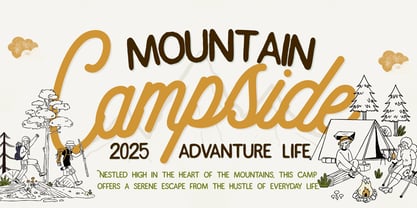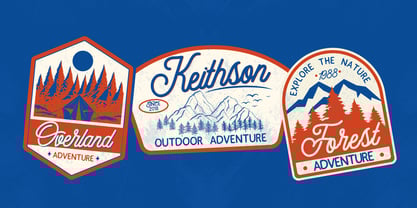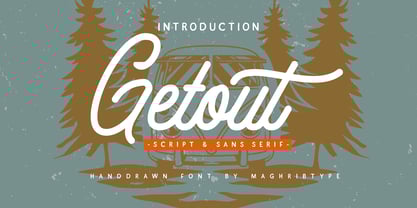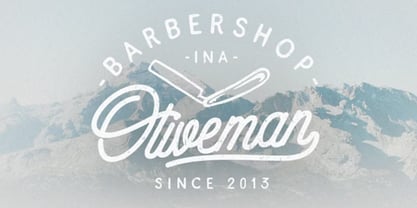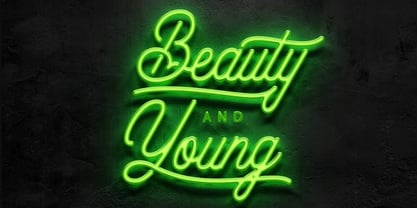
Getout
by Maghrib Type
The Getout Font Family was designed by Rizky Setyaludin and published by Maghrib Type. Getout contains 2 styles.
Getout is a handcrafted font duo that brings a natural and authentic touch to your designs. This set includes two complementary styles: a flowing script font and a clean sans serif, both designed with a handwritten feel to create a cohesive and versatile aesthetic.
The script font offers smooth, elegant strokes perfect for logos, headlines, or personal branding. Meanwhile, the sans serif font features a simple yet organic structure that maintains the handwritten charm, making it ideal for subheadings, taglines, or body text.
Inspired by the adventurous spirit of the mountains, Getout is perfect for projects that need a personal, crafted look—such as packaging, invitations, apparel, and more.
Crafted by Maghrib Studio, this font duo provides flexibility and harmony in one complete package.
Designers: Rizky Setyaludin
Publisher: Maghrib Type
Foundry: Maghrib Type
Design Owner: Maghrib Type